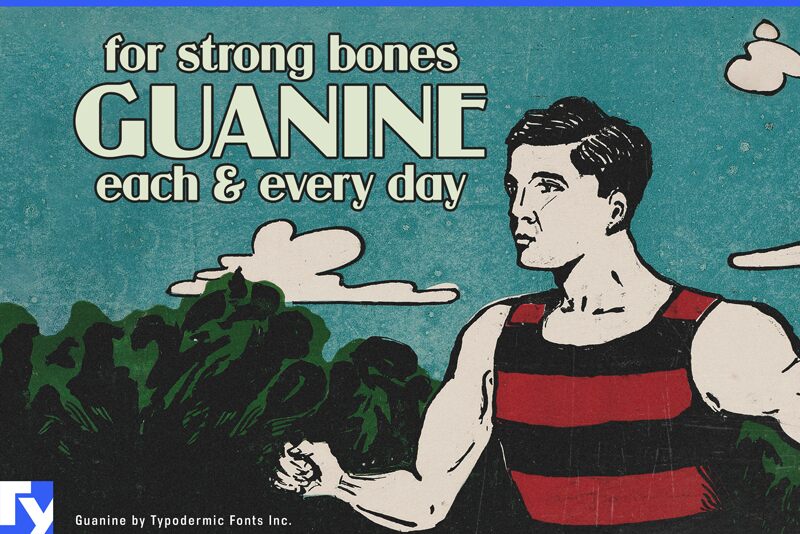
Guanine-Regular
A 1920s-style font inspired by a bus logo. The TrueType version of this font is free for commercial use. Check the attached license agreement for details. Guanine now has square dots on the exclamation and question marks. To access the old ones, use the OpenType "stylistic alternates" feature in your application.
Ray Larabie